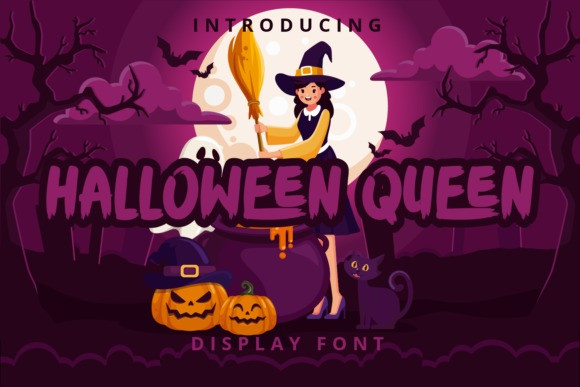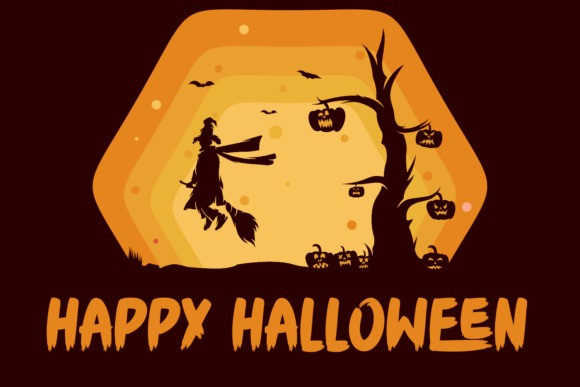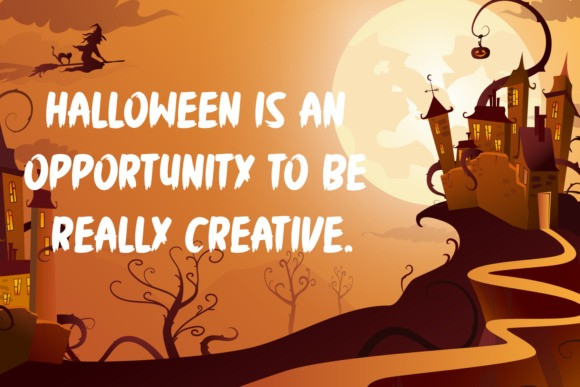
Halloween Queen Font
Halloween Queen is a bold and spooky display font. Expertly designed to make your creation look out of this world, this font has the potential to take your creative ideas far further.